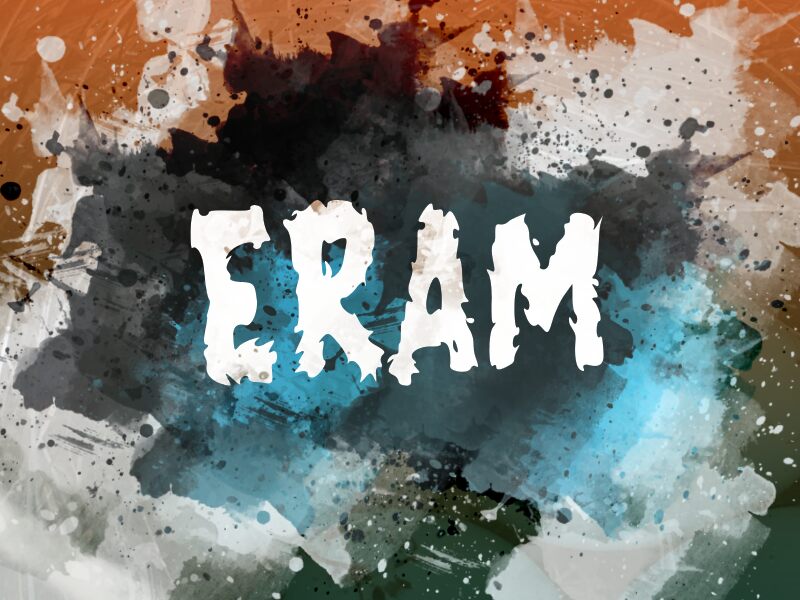
ERAM
Eran, a bold and semi-condensed display font by Wep, brings a unique and distorted style to your projects.
Its strikingly bold letterforms captivate attention, making it ideal for eye-catching headlines and titles that need an extra punch. With its semi-condensed width, Eran complements minimalist designs, corporate branding, and packaging projects seeking a modern edge. Whether you're working on posters, album covers, or logo designs, this distorted typeface adds a touch of creativity and originality to any project.
Stand out from the crowd with Eran's distinctive presence.